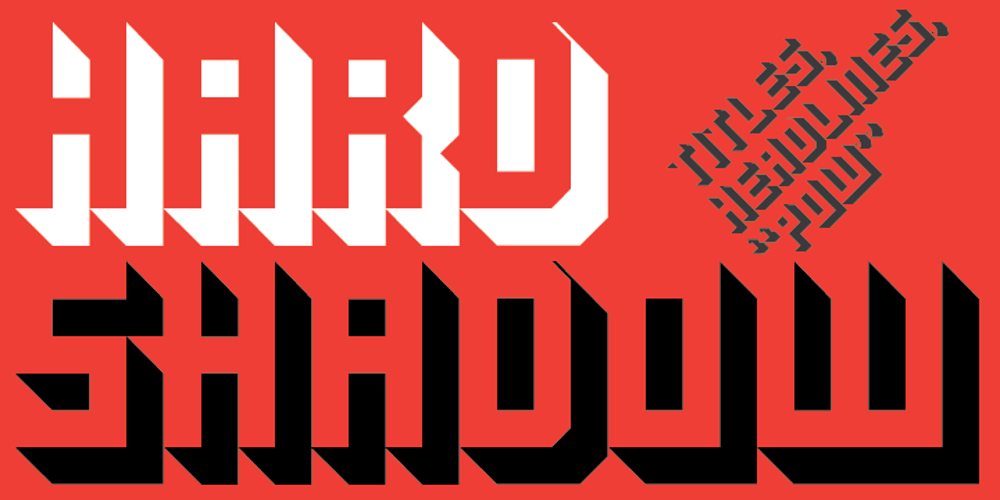
Hard Shadow Font Family was designed by published by Kate Brankin. Hard Shadow contains 1 styles and family package options. Hard Shadow, the perfect typeface for headlines, logos, posters, and anything else that needs to call attention to itself.